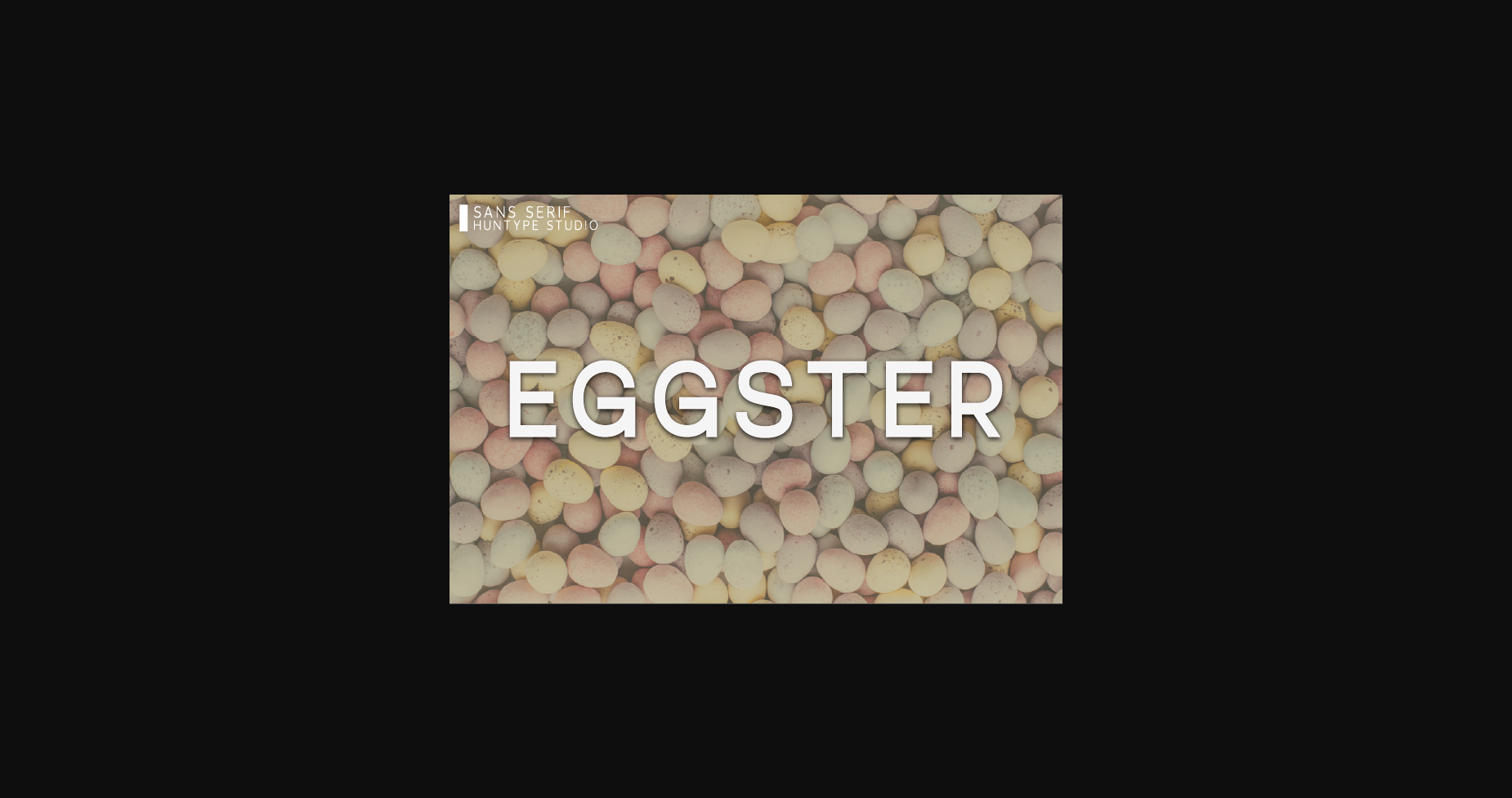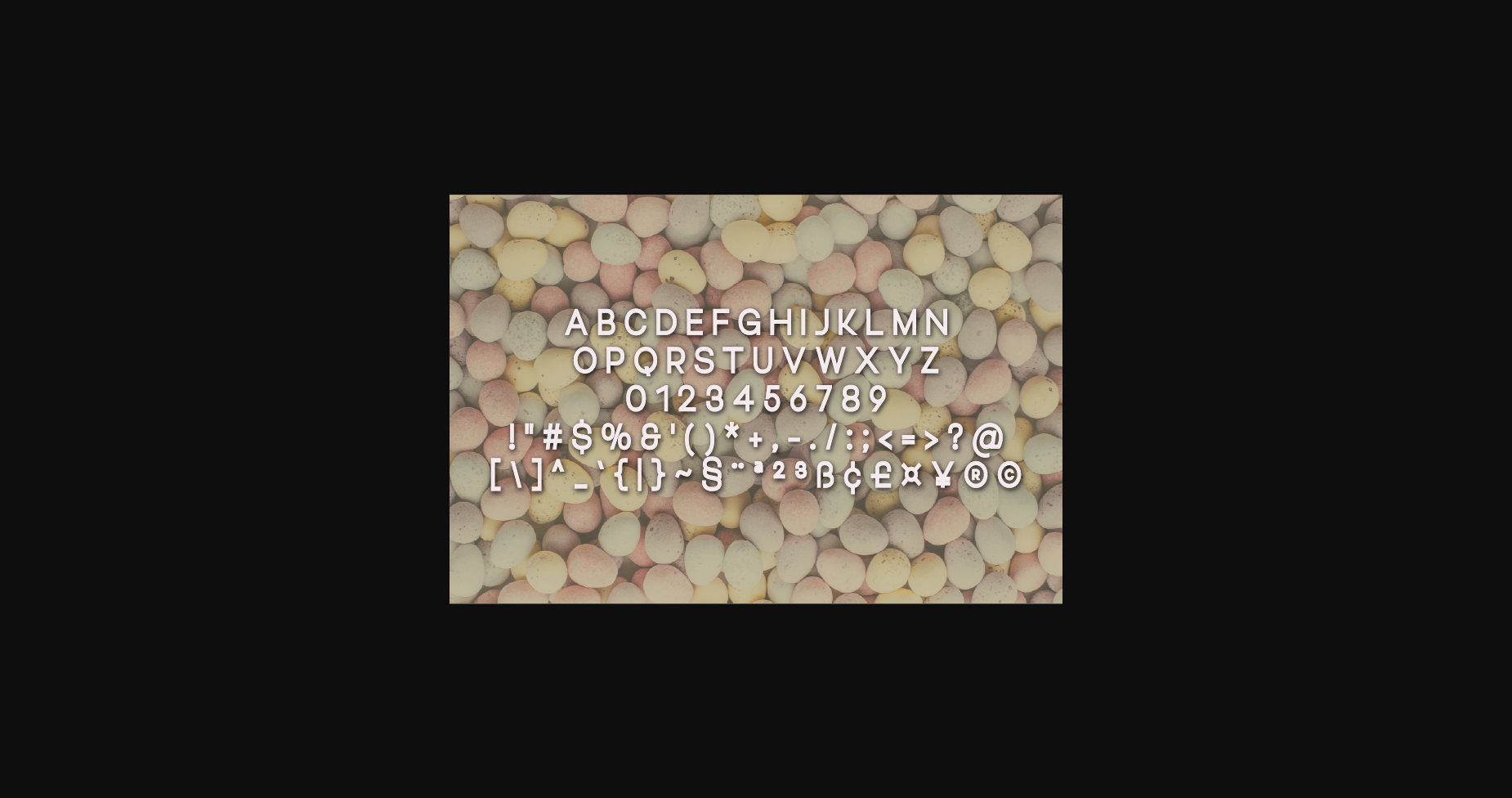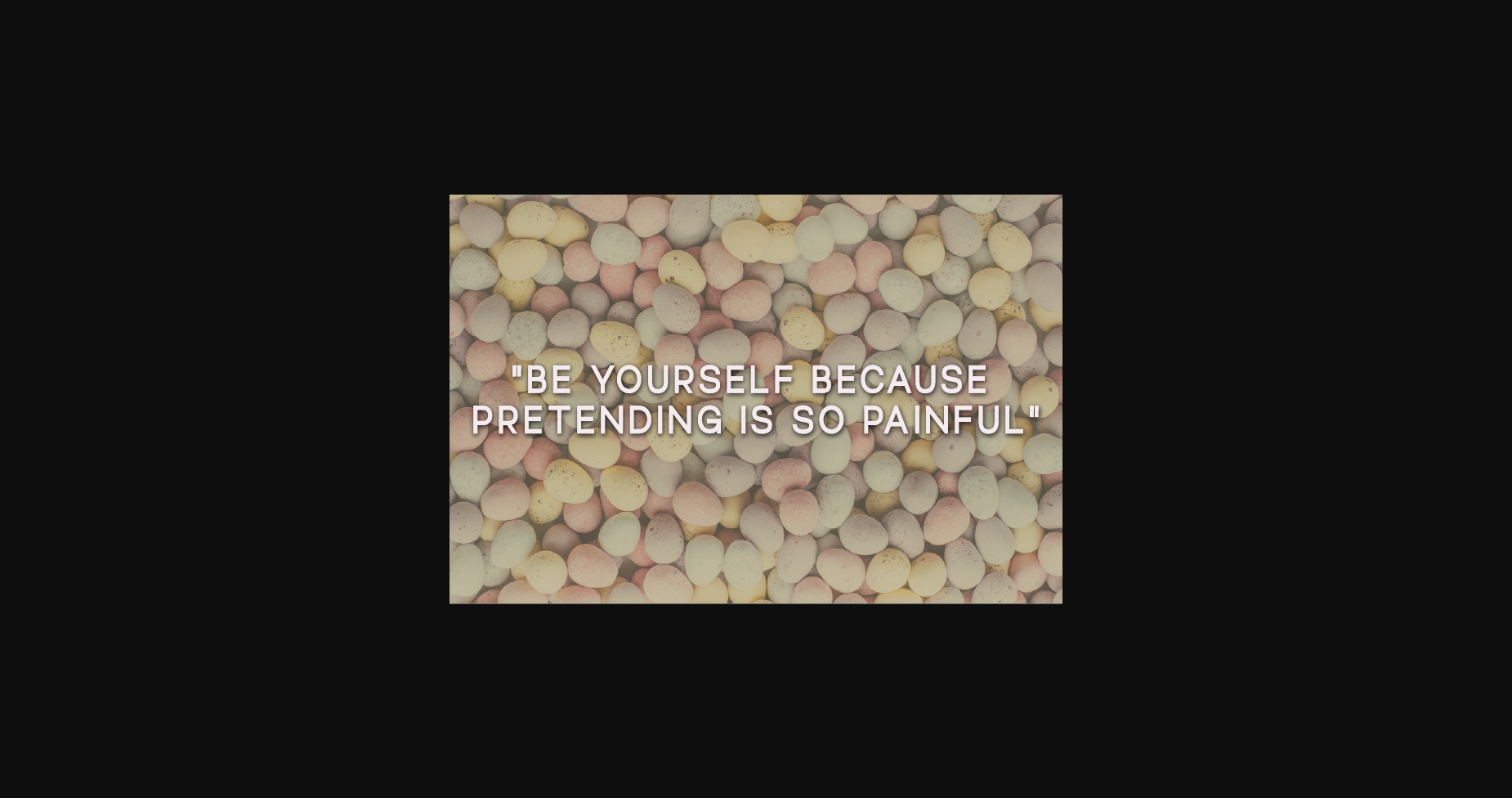
HomeSans Serif FontsEggster Font Sans Serif Fonts Eggster Font FacebookXPinterestWhatsApp 1 of 5 ... Eggster Font Poster 2... Eggster Font Poster 3... Eggster Font Poster 4... Eggster Font Poster 5... About Eggster Font Eggster is an all-caps sans serif font, so versatile and great in just about any context. With smooth and clean lines and just a touch of contrast, this font works beautifully for logos, branding, and web headings. DOWNLOAD NOW People also explored Addlethorpe Fahoste Font Ambitive Font Christmas Snow Font Libiri Font Dangerfield Night Font Romantic Rainbow Font Last Night Script Font 412 0 TagsEggsterEggster Font Previous articleCandlewick FontNext articleFlowers Font LEAVE A REPLY Cancel reply Comment: Please enter your comment! Name:* Please enter your name here Email:* You have entered an incorrect email address! Please enter your email address here Website: Save my name, email, and website in this browser for the next time I comment. Personal Use Free Feather Script Personal Use Free Read more about this font Romansya Personal Use Free Read more about this font Milda Personal Use Free Read more about this font Krase Personal Use Free Read more about this font BLOG How to Install and Use Fonts on Windows, macOS, and Web Projects How to Install and Use Fonts on Windows, macOS, and Web Projects Fonts are a crucial part of design and branding. Whether you’re designing a... Best Fonts for T-Shirt Design – Top 2025 Picks Where to Buy American Fonts Online in 2024 Exploring Font Trends